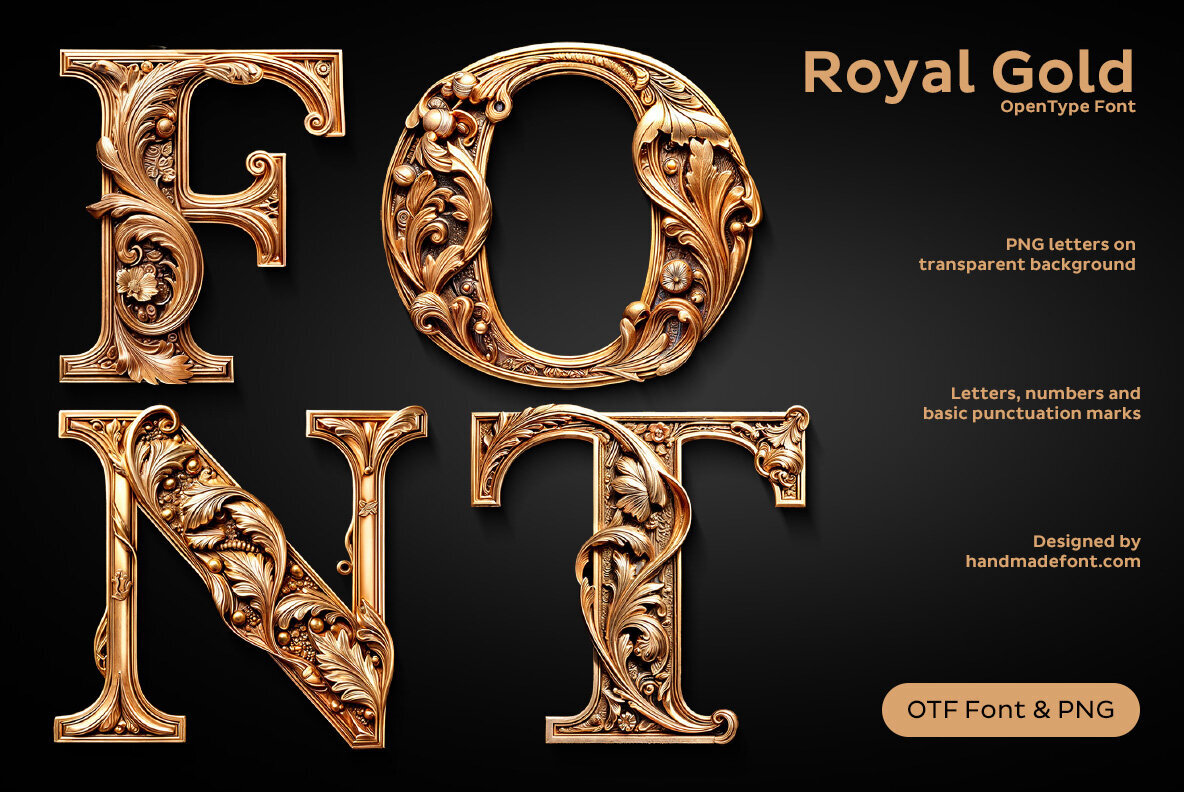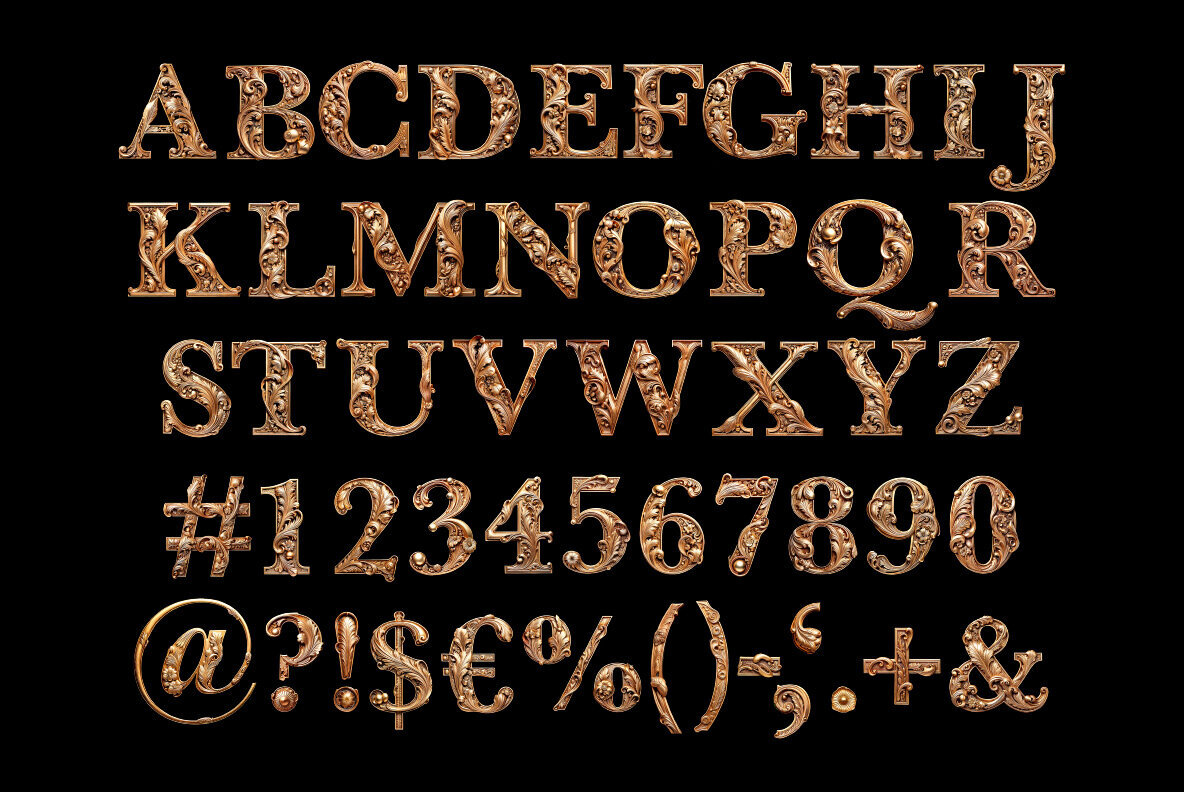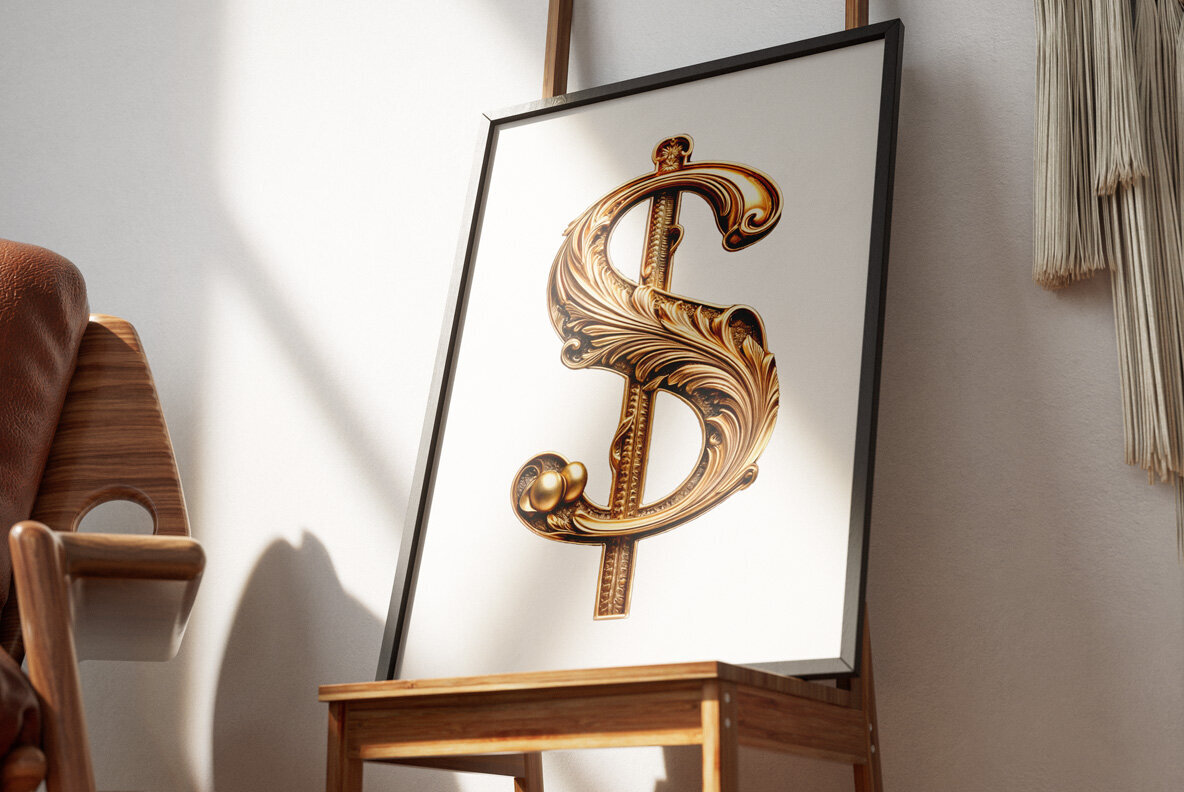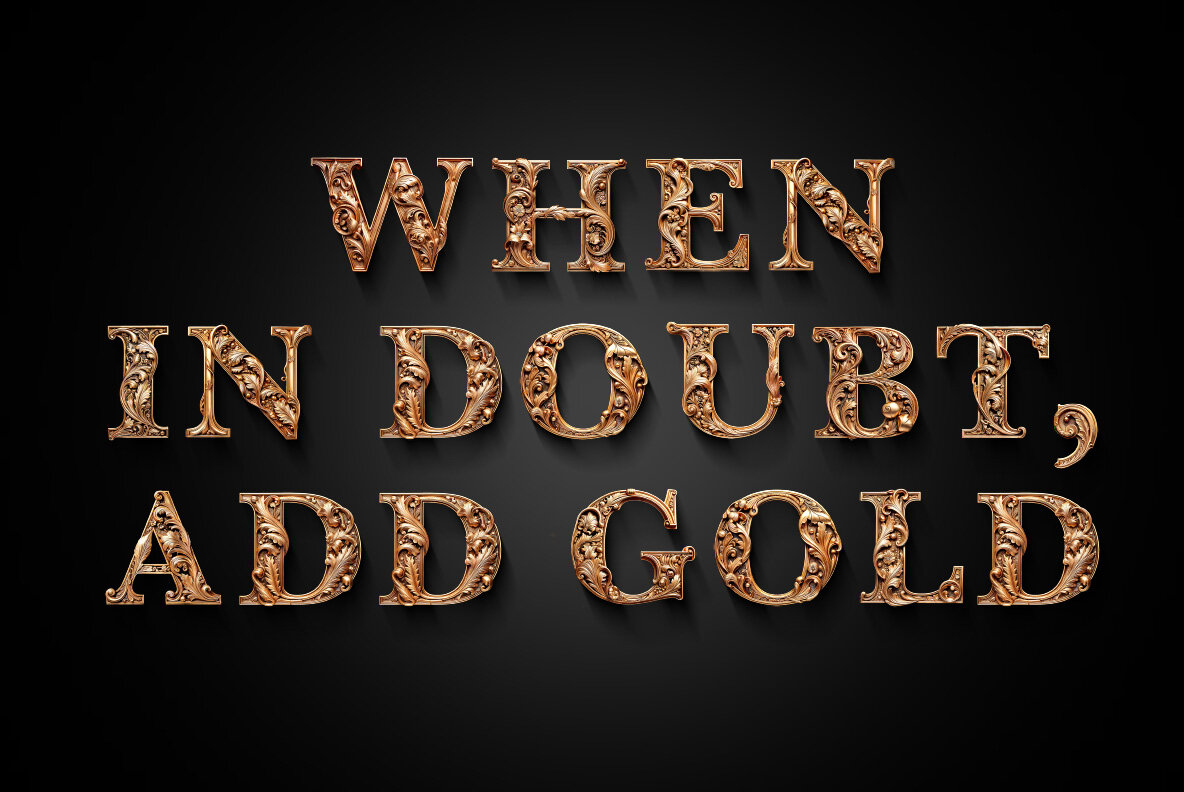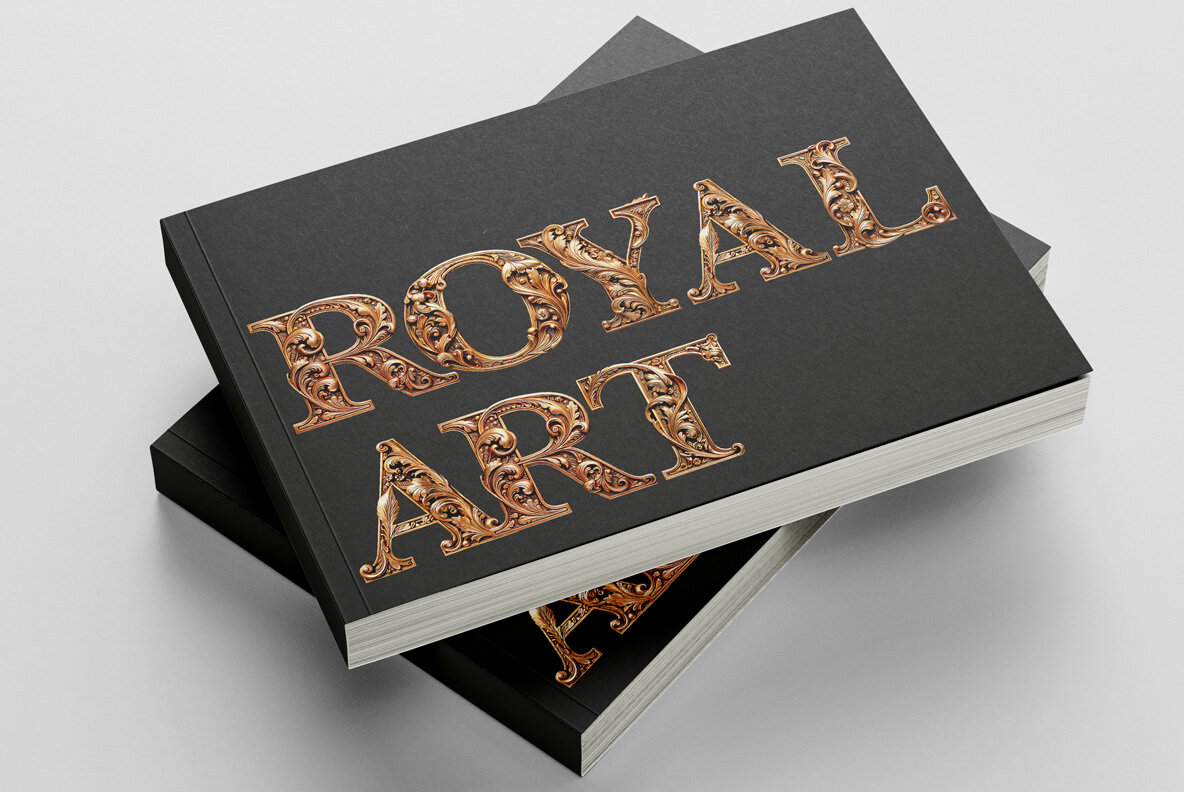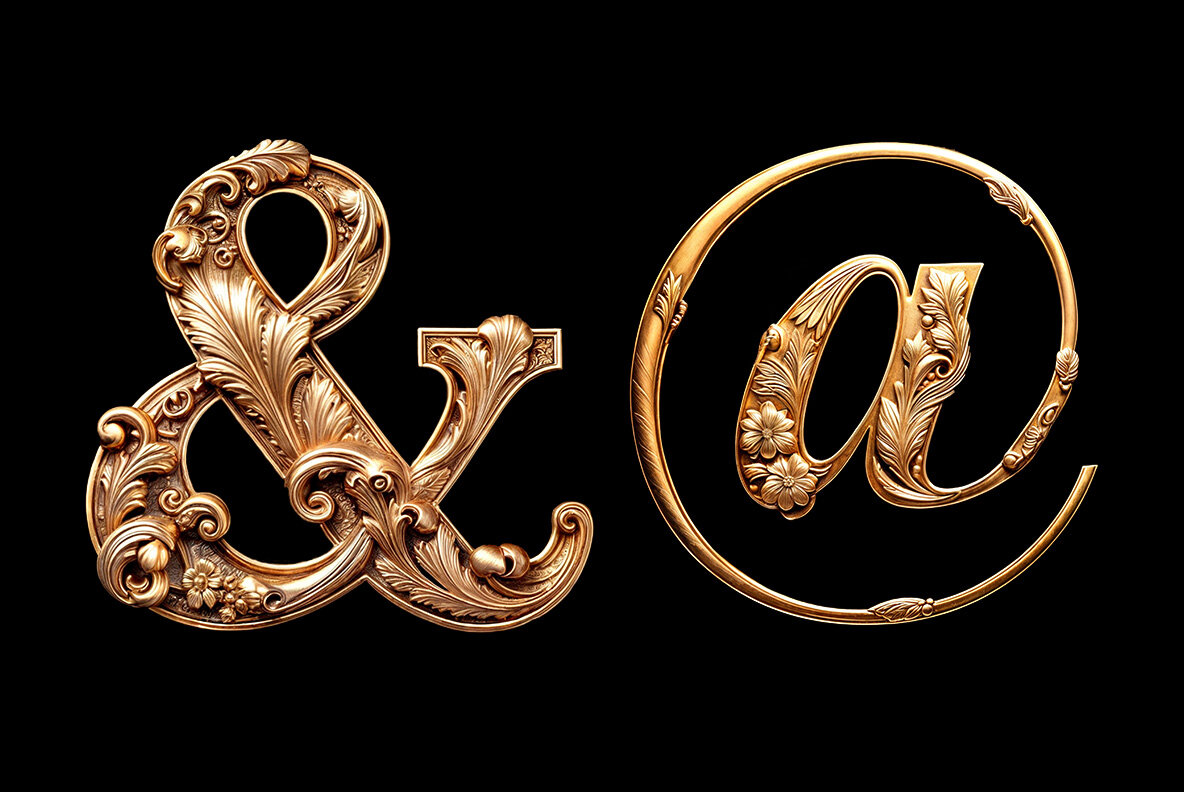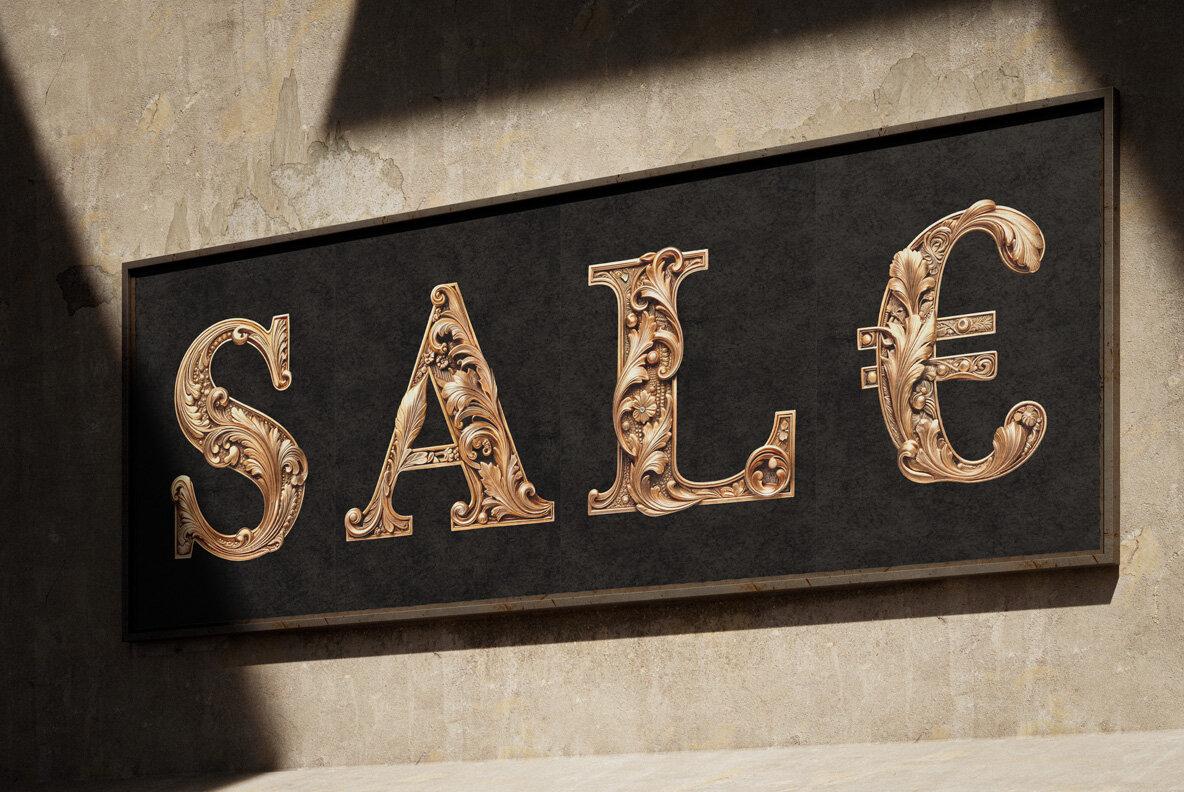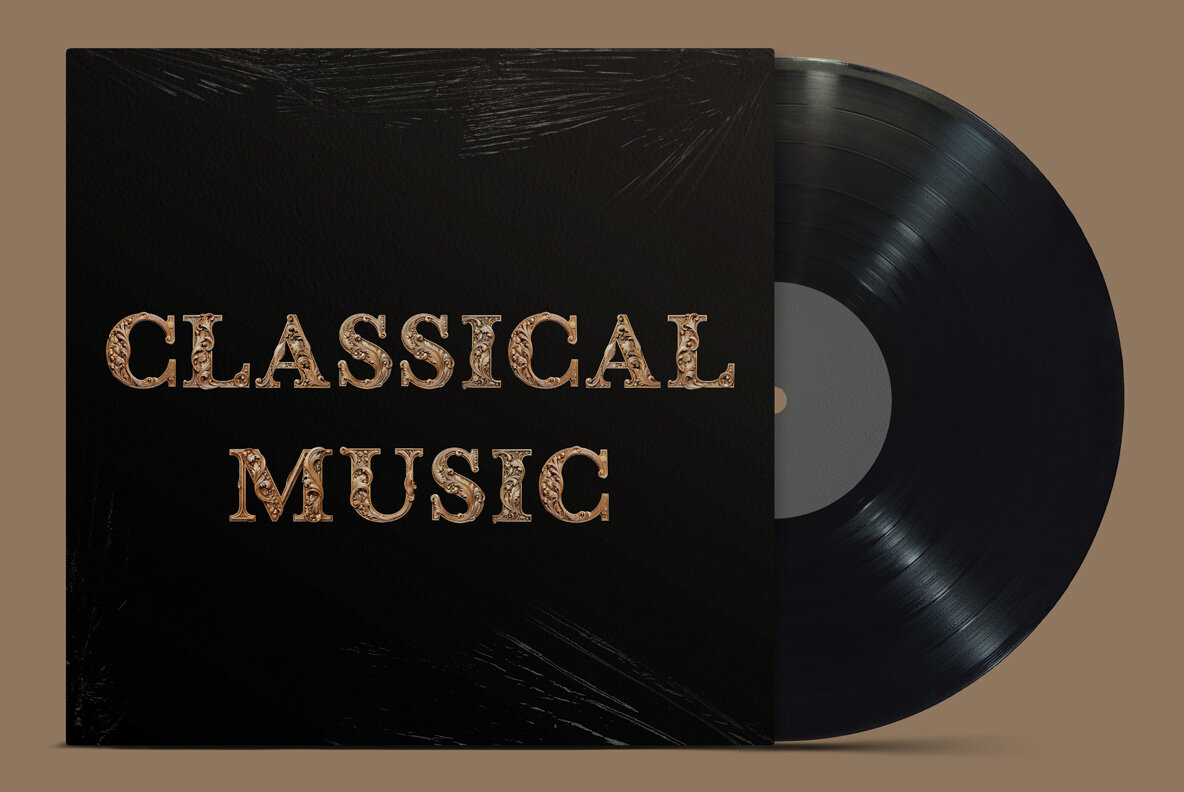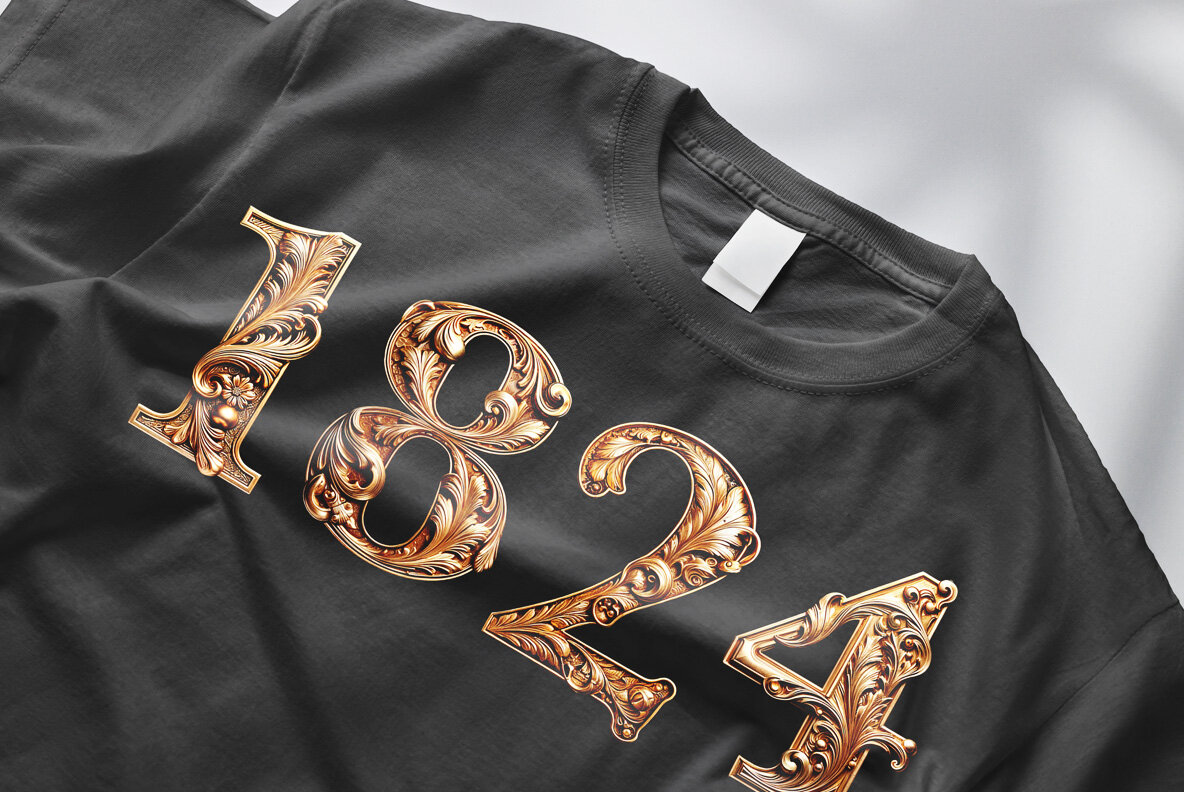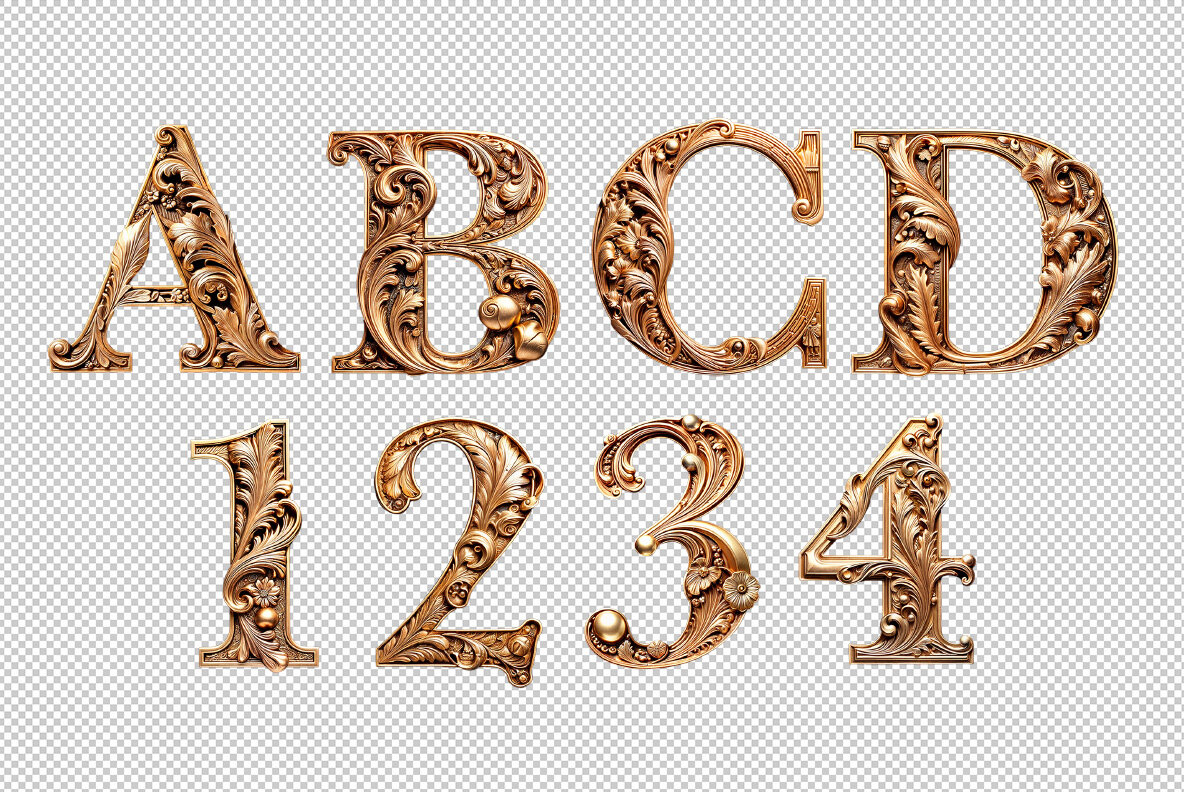
Royal Gold Font is the drama queen of typefaces—bold, baroque, and bedazzled like it just inherited a castle and a questionable title. Every letter is carved like it's auditioning for a royal soap opera, drenched in golden swirls and extra fancy flair. It doesn’t whisper; it declares, with a flourish and a fan. This font doesn’t do minimalism—it does majestic. Ideal for projects that demand attention, admiration, and possibly a royal decree. Warning: prolonged use may result in spontaneous tea parties, fake British accents, and a sudden need for velvet capes. Bow down—your lettering just got crowned. A high definition OpenType Font. Contains uppercase characters, numerals and basic punctuation. (Draw height roughly 800 pixels). All letters and glyphs that comprises this font you can see on the preview. The font is a colour OpenType file which means this font will show up only in apps that are compatible with color bitmap fonts. Now that OpenType-SVG has been adopted as the industry standard, there is good chance that you can start using color fonts across your favorite software and hardware (Photoshop, Illustrator, InDesign, QuarkXPress, Keynote, PowerPoint, Word etc.) However all characters are also included as individual .png files which can be opened in any graphics software. Each letter comes as a separate PNG file on a transparent background. Each image has the high resolution size of 4000x4000px. This downloadable package contains 52 files. Letters : A B C D E F G H I J K L M N O P Q R S T U V W X Y Z Punctuation and Language Support. Due to the large nature of OpenType-SVG fonts, extended punctuation and language support are not included in the font files. However all punctuation characters and the following accents are included as individual image files in the .png letter set, which can be manually added to your text.